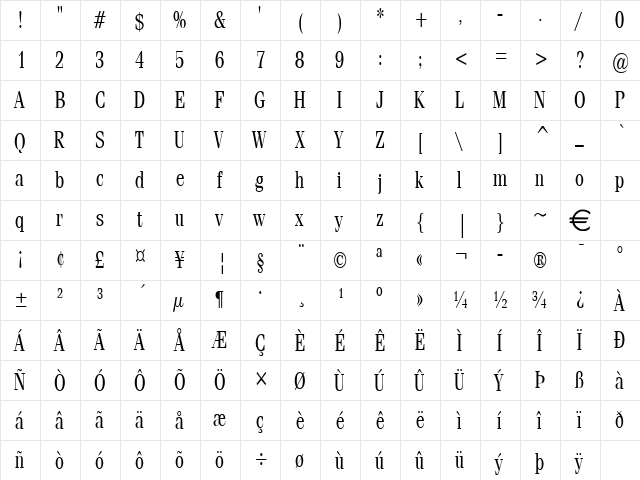
FelineThin Normal Font Preview
FelineThin Normal
FelineThin Normal Font Details
Design Context for FelineThin Typeface
FelineThin takes a measured approach to typography — its balanced proportions and neutral character make it a reliable workhorse for both digital and print work. Its slender proportions lend an understated elegance to any composition.